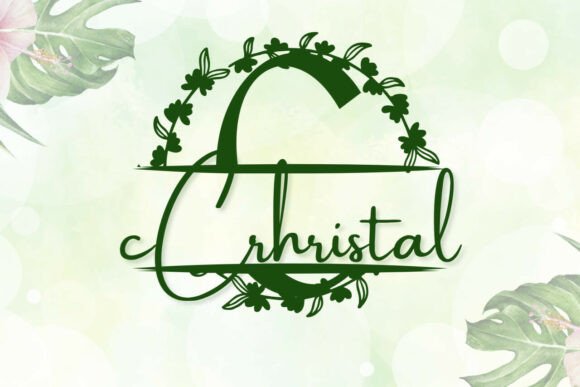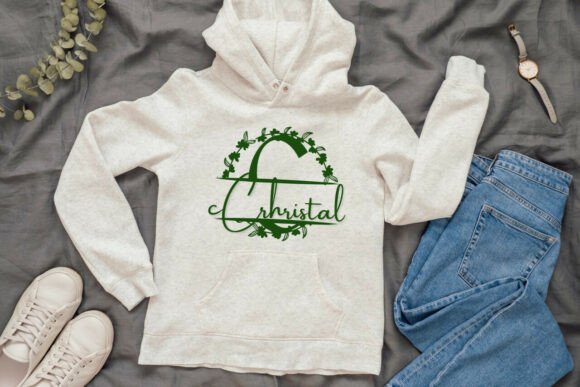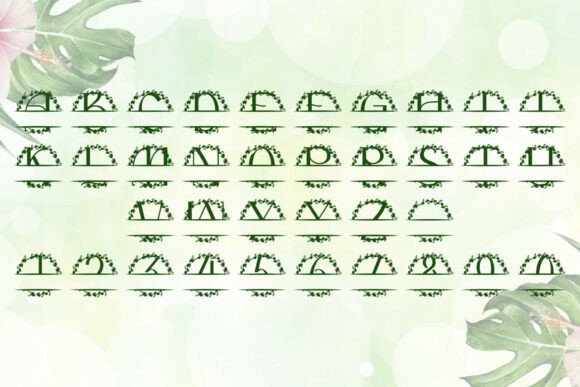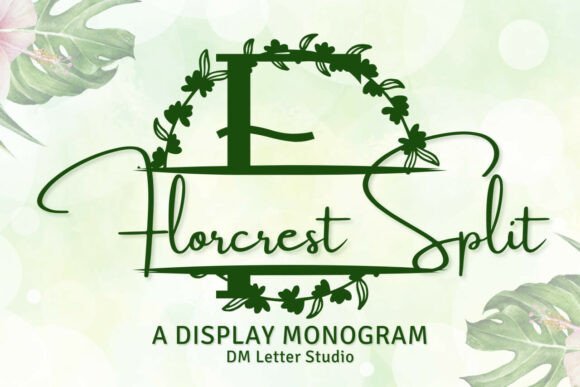
Introduction to Florcrest Split Monogram Font
Meet Florcrest Split Monogram Font turns initials into elegant nameplates in seconds.
The letterforms feel botanical and refined, while the clean center split leaves space for names, dates, or short words Because spacing stays balanced, results look polished with minimal effort.